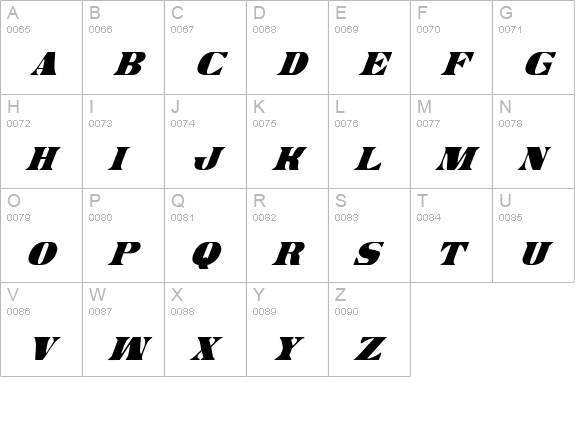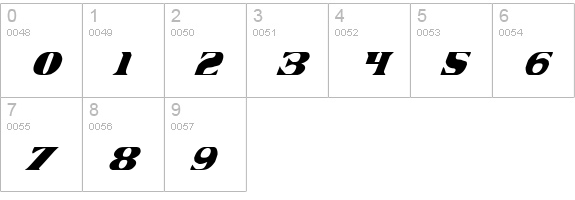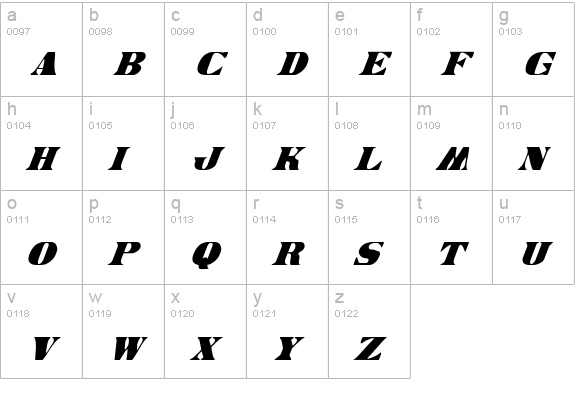
Legal Tender Condensed Italic Font Details
Legal Tender Condensed Italic is a distinctive, condensed-width, italic variant in the Legal typeface family \xE2\x80\x94 well suited to design and typography projects.
Legal Tender Condensed Italic is a sleek and sophisticated font that exudes elegance and professionalism. Its condensed and italicized design adds a touch of flair and uniqueness to any project, making it perfect for a wide range of applications. This font is meticulously crafted with precision and attention to detail, resulting in a refined and polished typeface that is sure to impress. The condensed nature of the font allows for efficient use of space, making it ideal for designs that require a compact layout without sacrificing style. Legal Tender Condensed Italic is versatile and adaptable, making it suitable for both print and digital media. Whether you're designing a logo, creating a brochure, or working on a web project, this font will elevate your work to new heights. One of the best features of Legal Tender Condensed Italic is that it is free. That's right, you can download this remarkable font for free at FontsMarket.com. This means that you can enjoy all the benefits of this stunning typeface without any cost. It's a fantastic opportunity to enhance your design projects without breaking the bank. With Legal Tender Condensed Italic, you can add a touch of sophistication and elegance to your work. Its sleek and refined design will captivate your audience and leave a lasting impression. Download this font today from FontsMarket.com and unlock a world of creative possibilities.